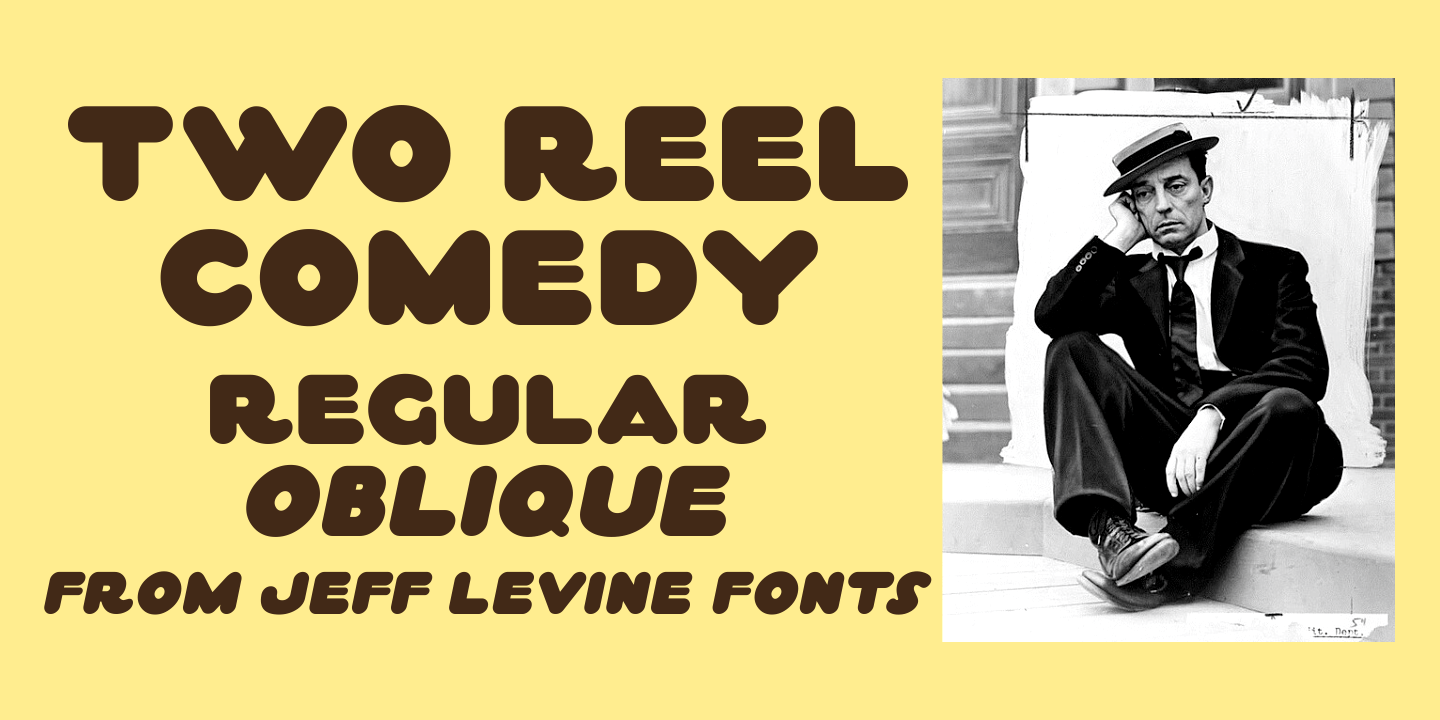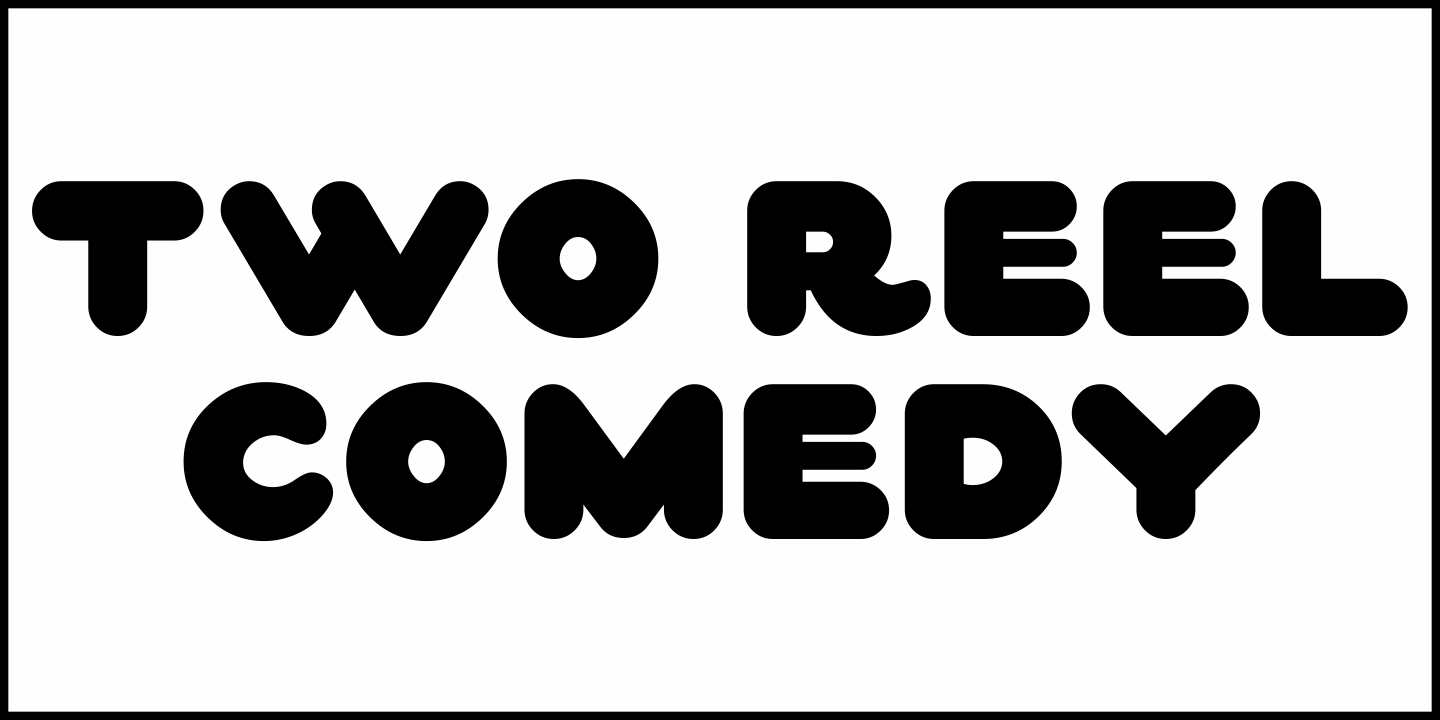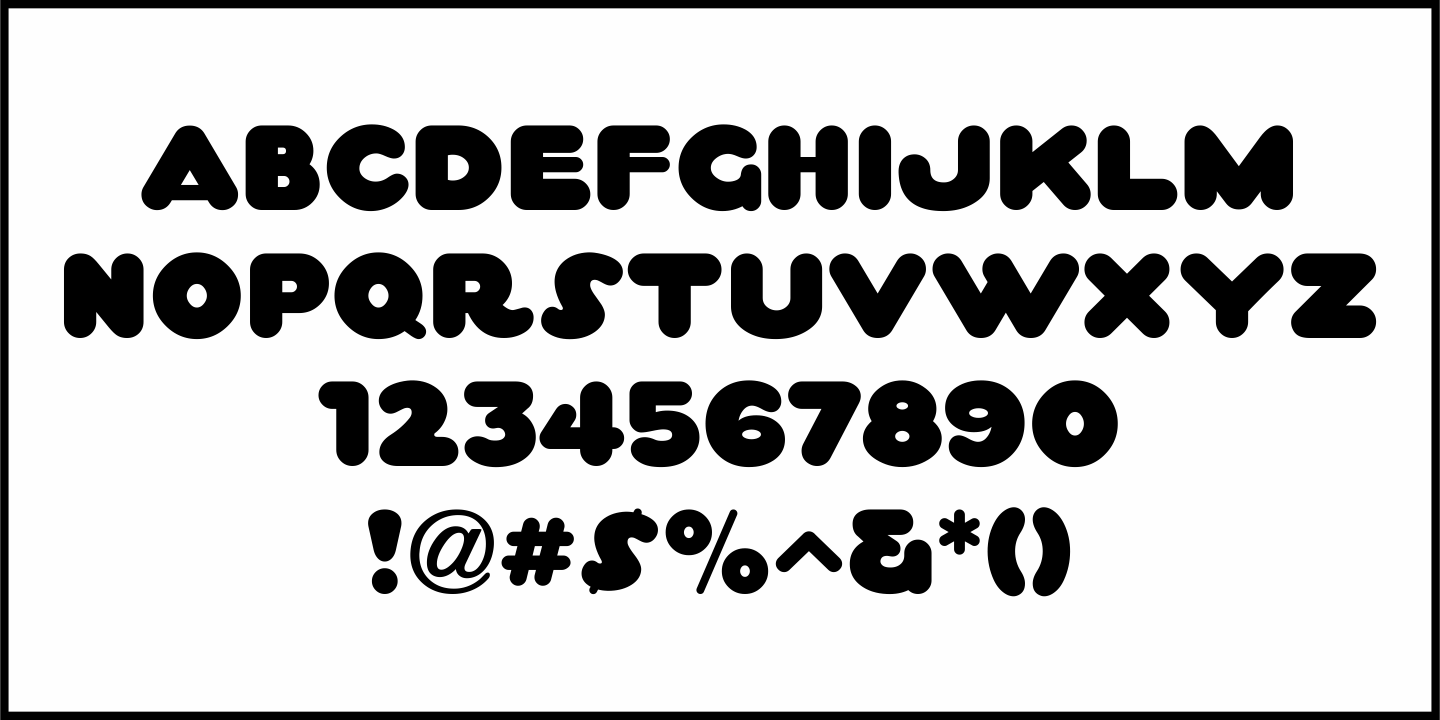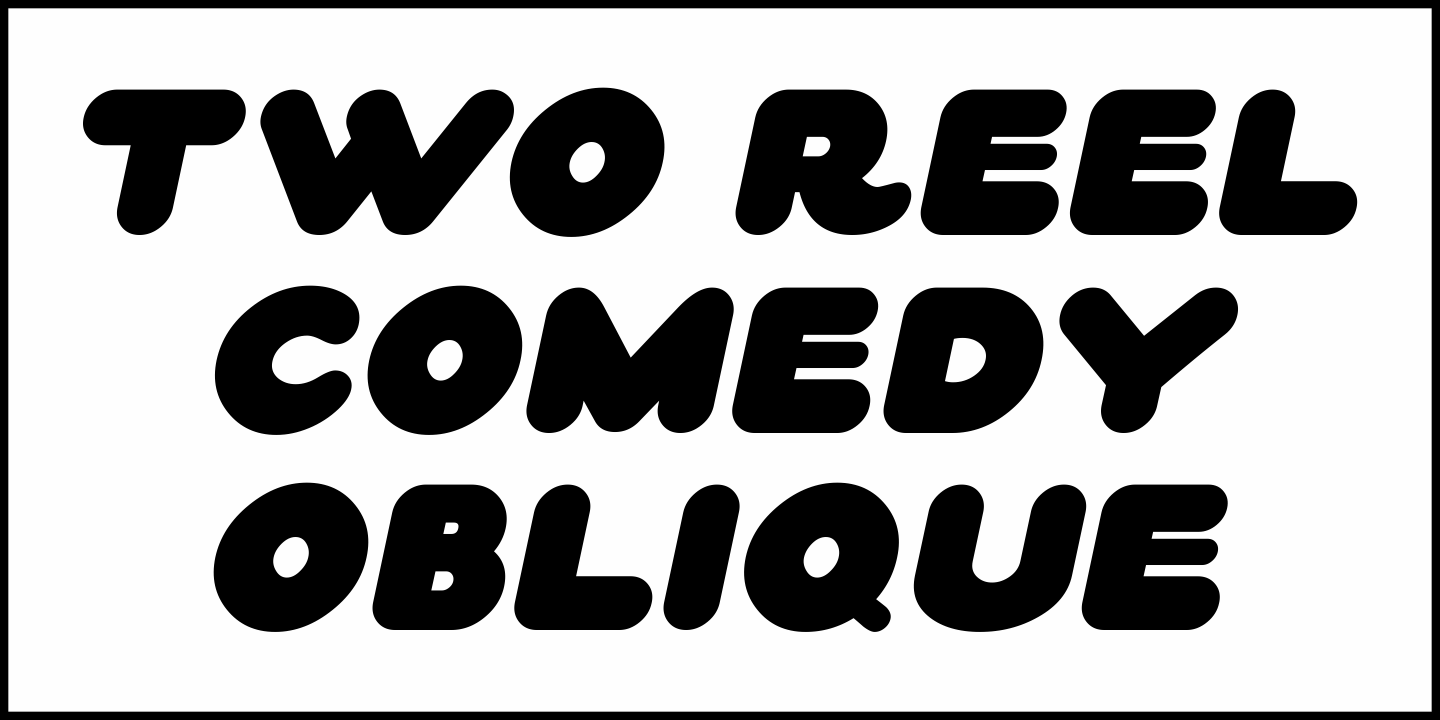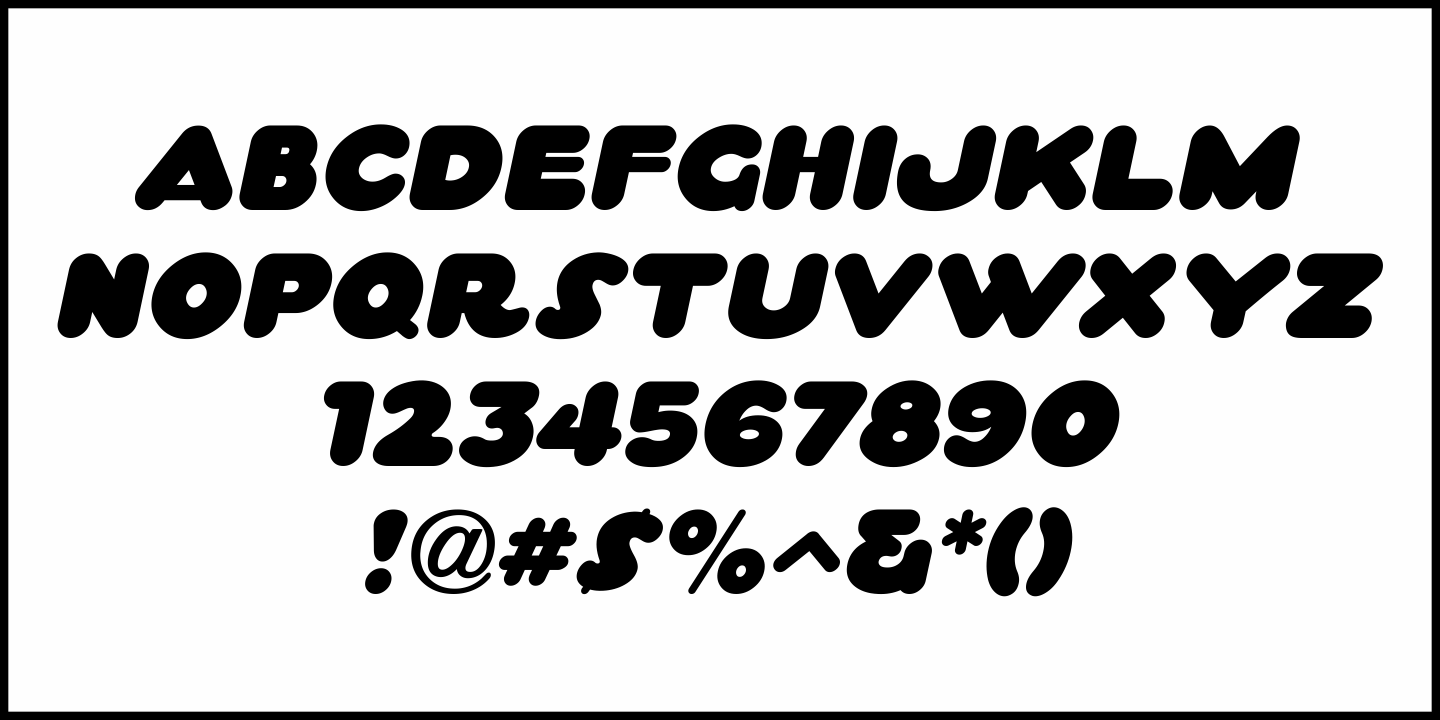
Two Reel Comedy
Buy NowAn ad for Century Comedies in the January 17, 1922 issue of The Film Daily had the ad copy hand drawn in ultra bold, rounded pen lettering.
This fun, playful design is now available as Two Reel Comedy JNL, in both regular and oblique versions.